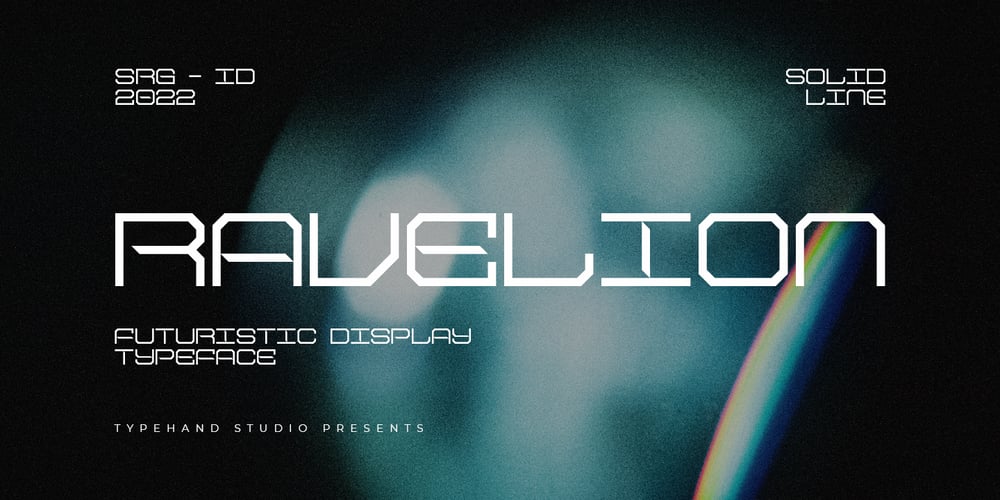
Ravelion Font Family was designed by Ahmad Gozali, Yanuar Adi and published by Typehand Studio. Ravelion contains 2 styles and family package options. Ravelion is a sans serif all caps display font. Available in reguler and line style. Ravelion is made for futuristic font display.Ravelion is a funky, future-forward typeface set up perfectly any sci-fi space thriller. If you’re a fan of futuristic fonts, this one is for you! Ideal for contemporary, sci-fi and space designs, you can also apply this on adventure, branding, or music themes.Try different styles and experiment with kerning for best results.